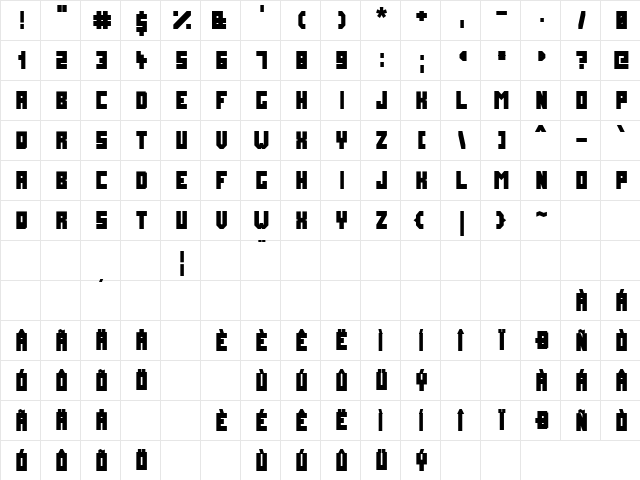
FutureMillennium Black
| Designer | Zdenek Gromnica aka FutureMillennium |
Design Context for FutureMillennium Typeface
FutureMillennium has a distinctly futuristic character, with geometric precision and clean angles that feel at home in technology, gaming, and sci-fi contexts.
Pro Tip: Try FutureMillennium with generous letter-spacing in UI labels and navigation — the geometric forms benefit from room to breathe.